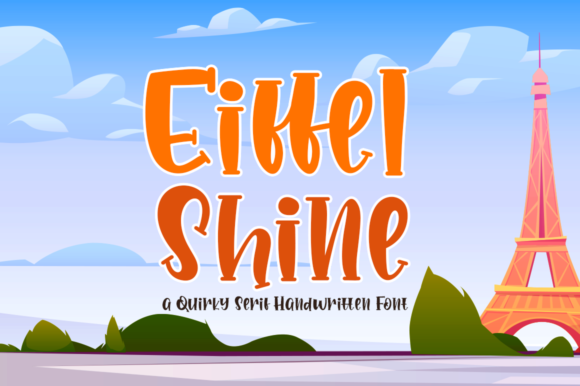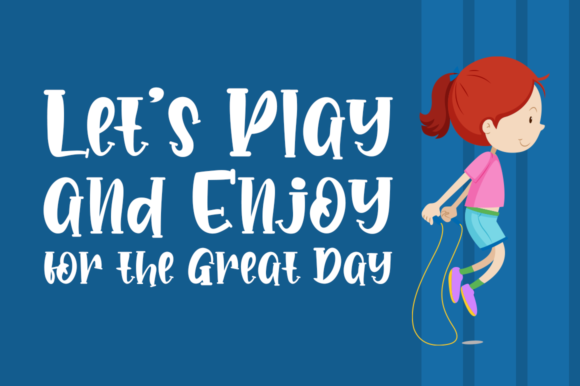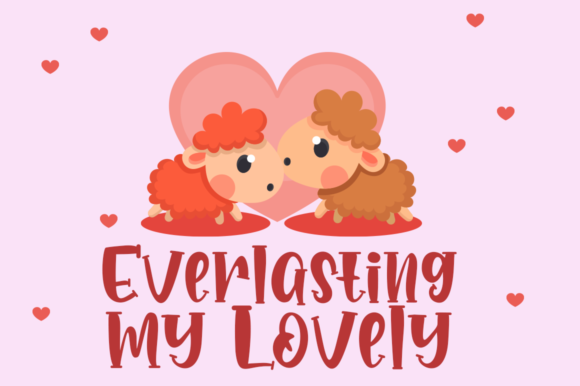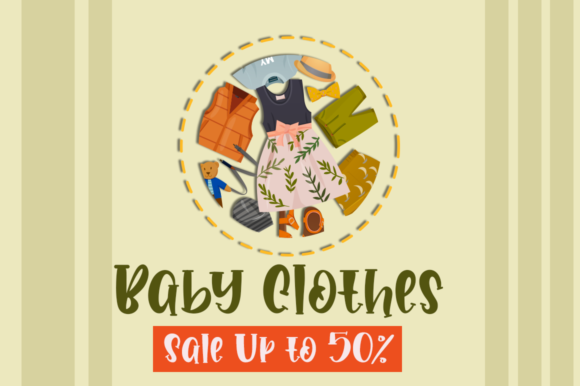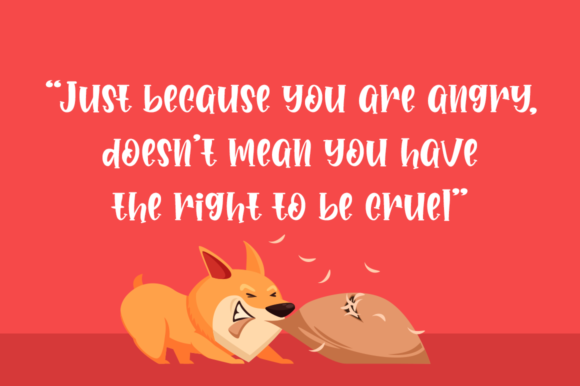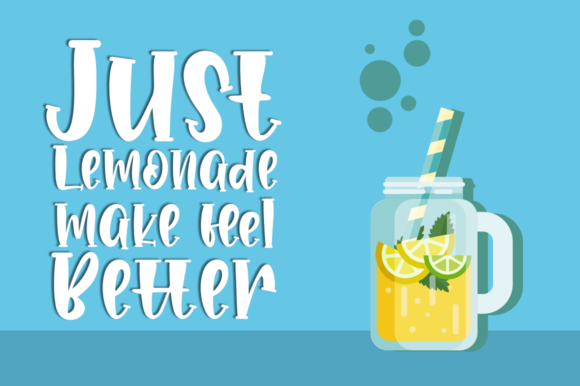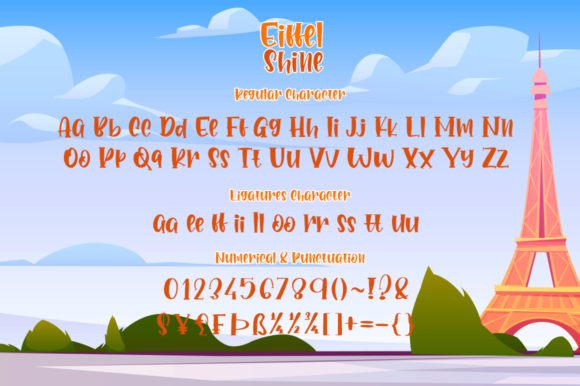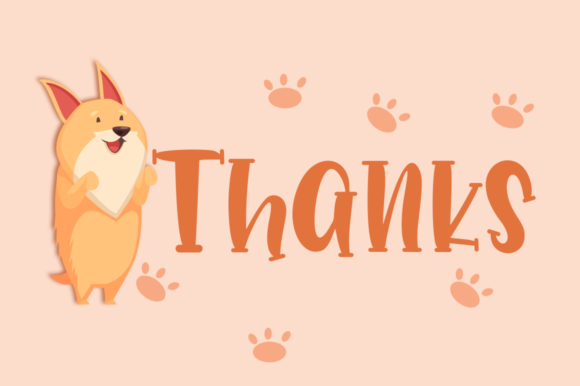
Eiffel Shine Font
About Eiffel Shine Font
Eiffel Shine embodies fun, quirkiness and authenticity. This enchanting handwritten font will turn any creative idea into a true standout.